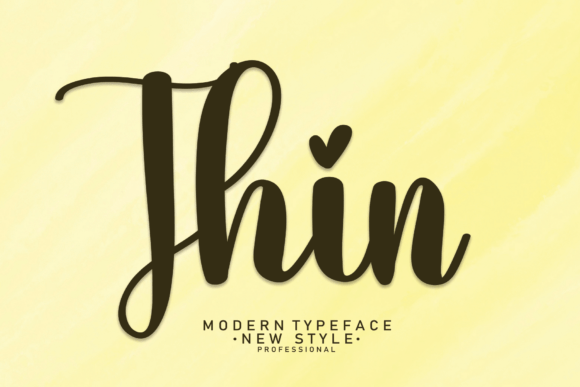
Unleash your artistic flair with Thin, the enchanting handwritten font that evokes elegance and charm like no other. Immerse yourself in a world of creativity as you explore the mesmerizing world of typography.
Thin is the brainchild of andikastudio, a renowned designer known for capturing the essence of beauty in every stroke. Each letter is meticulously crafted to exude a touch of sophistication, ensuring that your designs leave a lasting impression.
With Thin, say goodbye to mundane lettering and embrace a font that speaks volumes. Its delicate curves and flowing lines are a testament to the power of simplicity, allowing your words to shine with captivating allure.
Dive into the limitless possibilities of Thin and transform your designs into visual masterpieces. From captivating wall displays to heartfelt wedding invitations, Thin adds a touch of elegance to every endeavor. Let your creativity soar as you craft logos that stand out on social media posts, advertisements, and product packaging.
Thin is not just a font; it's an experience, an expression of your individuality. Whether you're a seasoned designer or just starting your creative journey, Thin empowers you to create designs that resonate with your audience.
Unleash the magic of Thin today and embark on a journey where your imagination takes center stage. Let Thin be your guiding light, leading you towards designs that captivate and inspire.